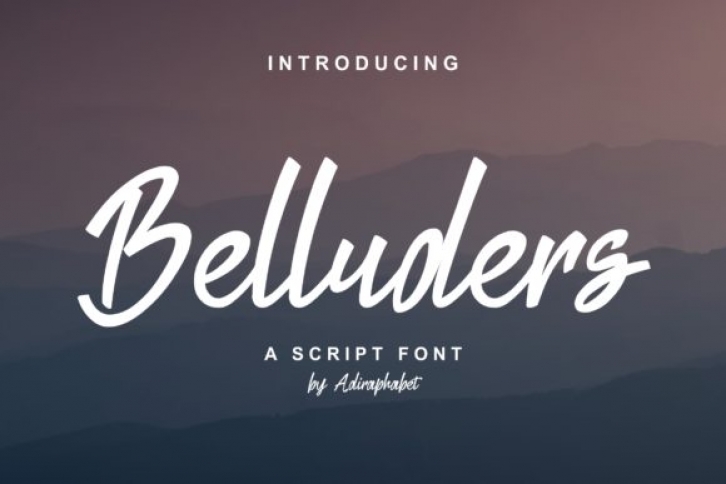
Belluders is a cool, flowing and trendy handwritten font. It looks stunning on posters, wedding invitations, thank you cards, quotes, greeting cards, logos and so much more.